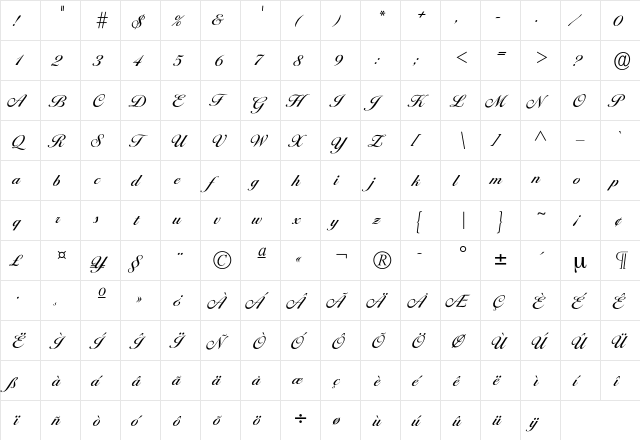
Iballantines-Medium Regular
Design Context for Iballantines-Medium Typeface
Iballantines-Medium takes a measured approach to typography — its balanced proportions and neutral character make it a reliable workhorse for both digital and print work.